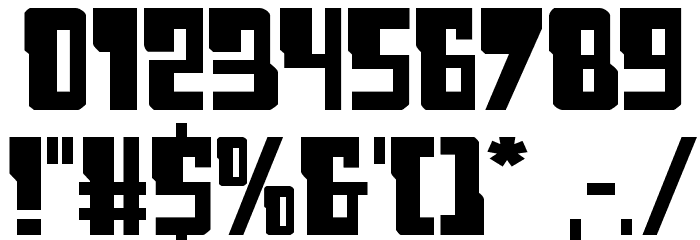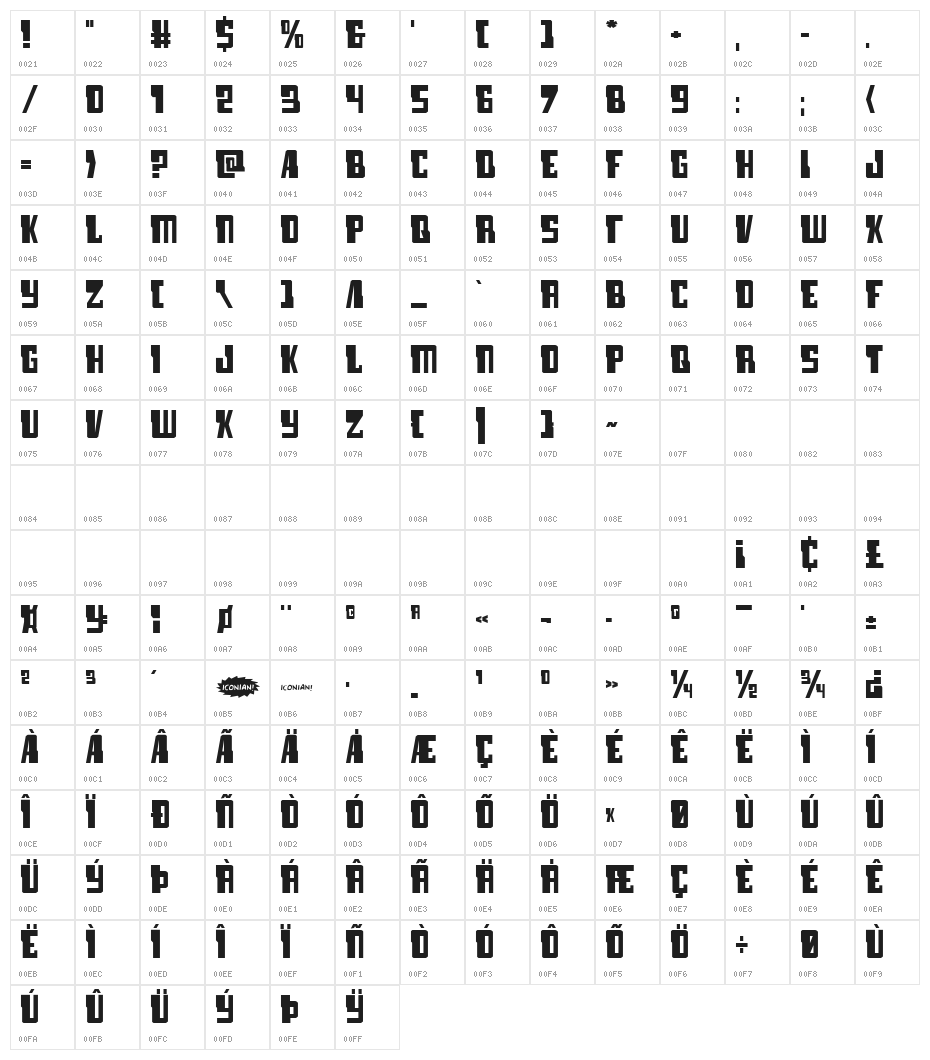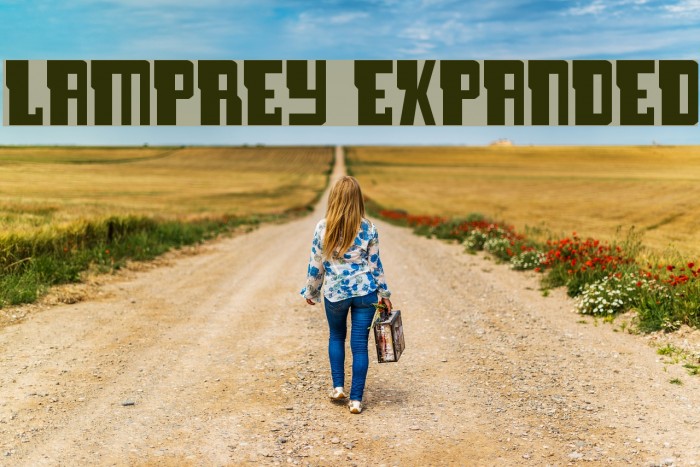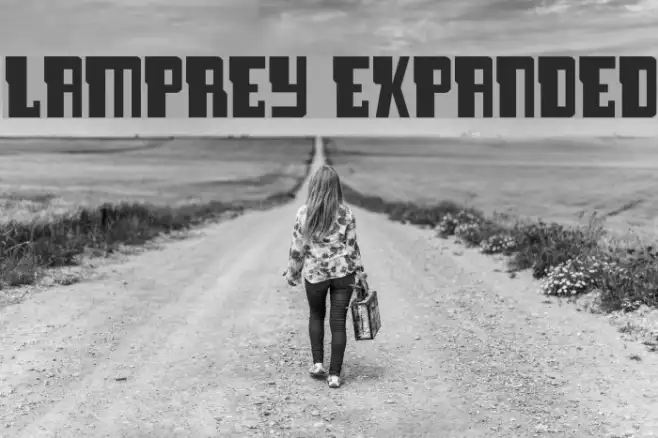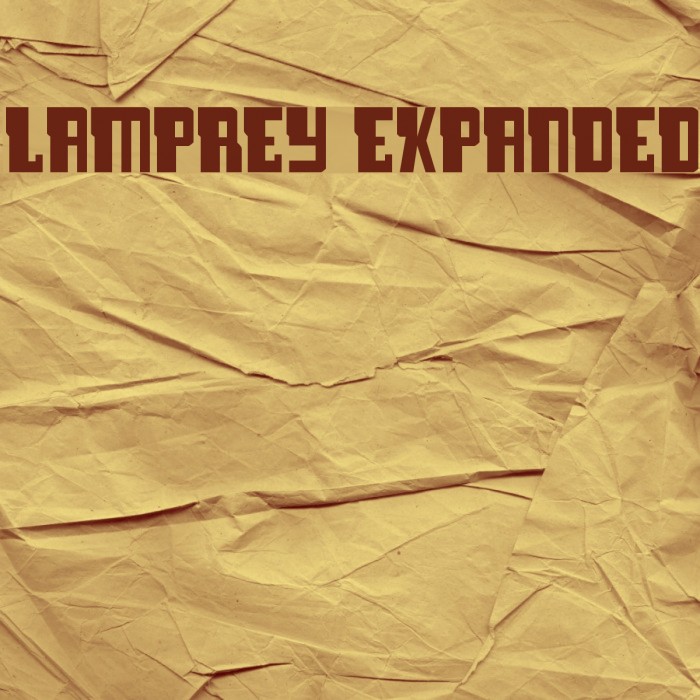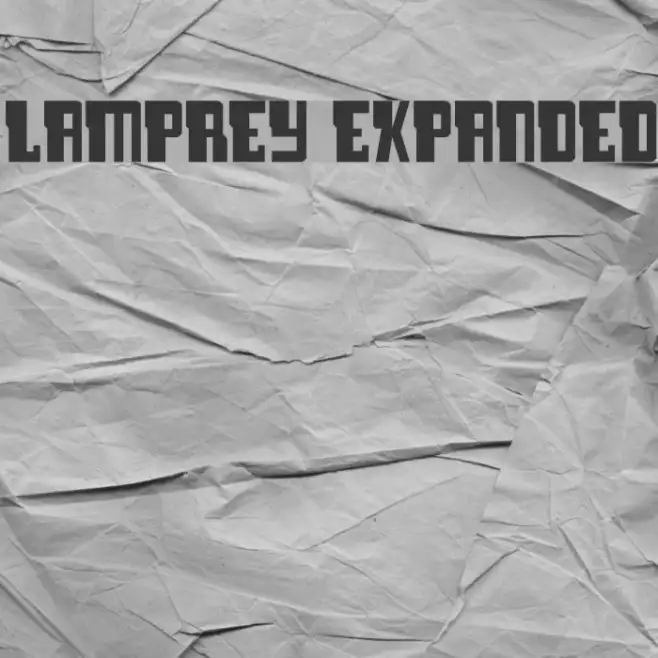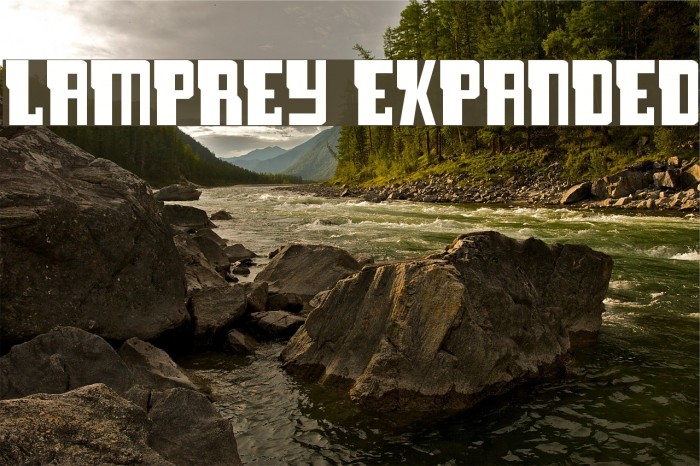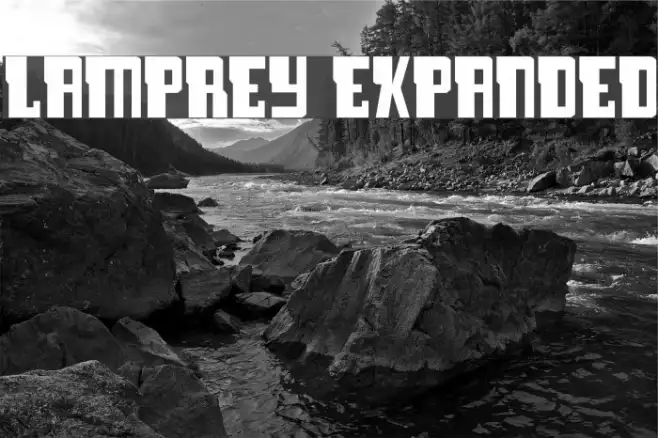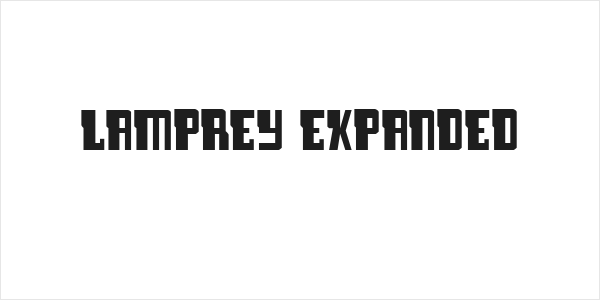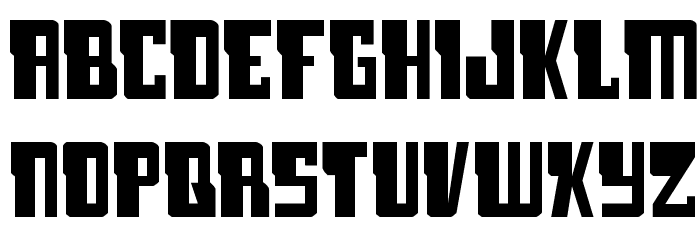
Lamprey Expanded Font
Lamprey Expanded Description
This font features a bold and striking design with a distinctly geometric and angular style. The characters are wide and blocky, with sharp edges and a strong presence. The uppercase and lowercase letters maintain a consistent weight, contributing to a uniform appearance. Numbers and special characters follow the same bold and angular design, ensuring cohesion across all elements. The font's expanded width gives it a commanding presence, making it ideal for attention-grabbing headlines and impactful designs.